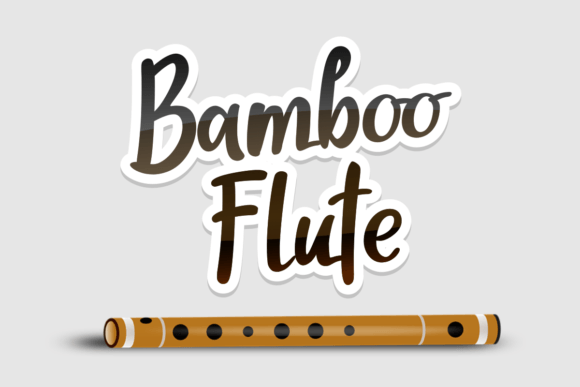
Introduction to Bamboo Flute Font
Bamboo Flute is a handwritten font that is great for wall displays, social media posts, logos, advertisements, product packaging, product designs, labels, photography, watermarks, stationery, and any project that requires handwritten taste.
Key Features of Bamboo Flute Font